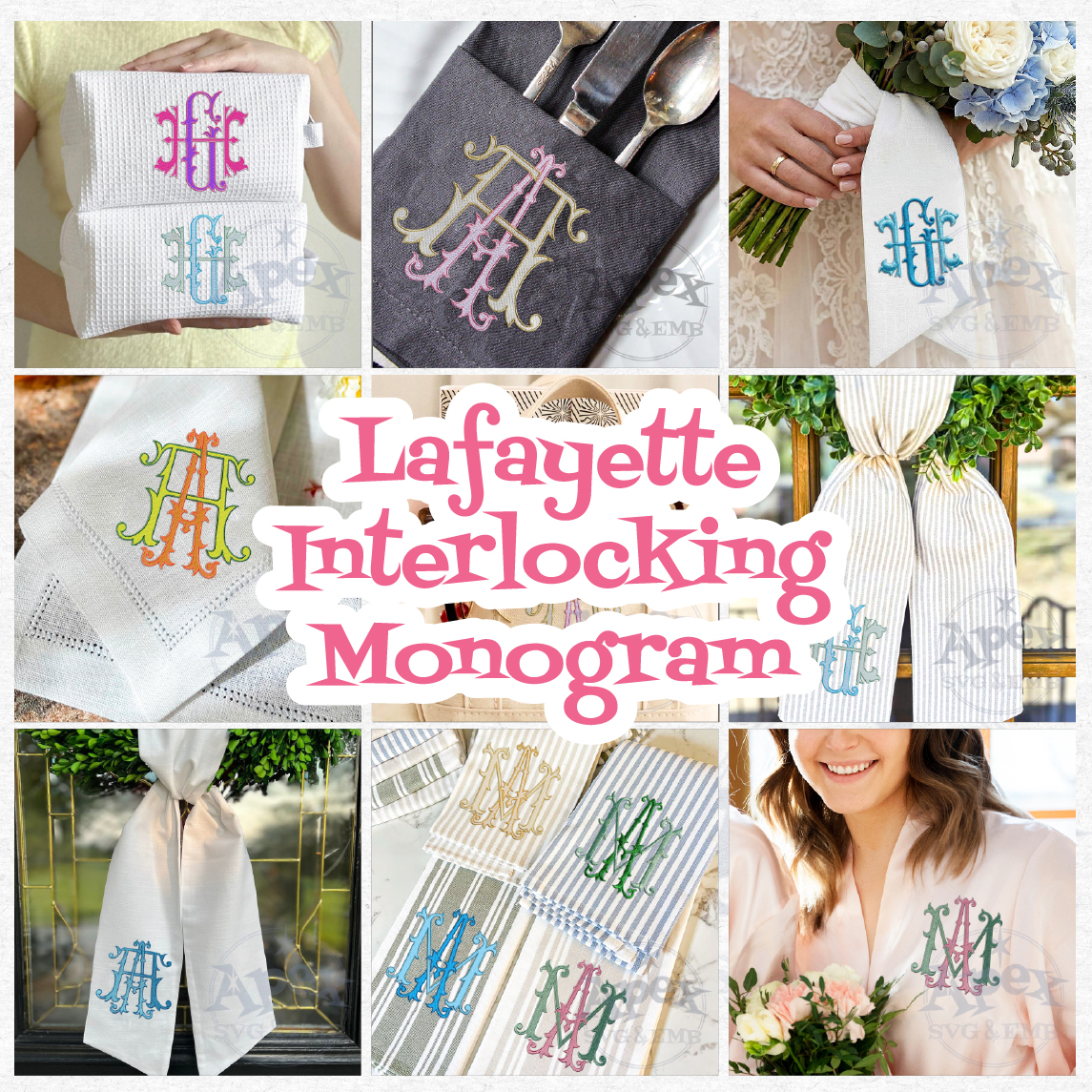
Interlocking embroidery fonts weave two or three initials into one joined monogram. At Apex you will find them in two forms: custom-made designs drawn for your own initials, and complete sets that include every two-letter pair, ready to stitch. This collection brings both together so you can compare styles, sizes, stitch types and how each design is delivered.
What Are Interlocking Embroidery Fonts?
Apex describes its interlocking monograms as initials that flow in and out of one another to form a single design. You will also see them called interlocking monogram fonts or interlocking letters. Two-letter designs use two initials and three-letter designs use three. In the complete sets each pairing comes pre-assembled into a single stitch-ready design, so there is no manual letter alignment.
Two Ways to Buy an Interlocking Monogram
Complete Sets With Every Two-Letter Pair
These sets include pre-merged two-letter monograms, so any pair from A to Z is ready to stitch. Their pages list machine formats plus BX for Embrilliance. Each set has 676 pairings.
- Varsity Interlocking Font: bold athletic block letters. The Regular Fill Stitch Set (2", 3" and 4") has solid fill with a contrast outline in 3 thread colors, and the Large Applique Set (6", 7" and 8") has applique placement lines, tack-down runs and a satin border
- Wings Interlocking Monogram: structured block uprights with sweeping wing extensions, in 2", 3" and 4"
- Script Ladders Interlocking Monogram: ladder-like bridges and calligraphic flourishes inspired by vintage French linens and Victorian ironwork, in 2", 4" and 6"
- Vine Fishtail Interlocking Monogram: slender vine flourishes through bold fishtail letters. Regular sizes (2", 3" and 4") use satin and fill, and Large sizes (6", 7" and 8") use satin, split stitch and applique layers. Its page also mentions curated pairing files for bride and groom monograms
- Pagoda Interlock Monogram: inspired by Chinoiserie architecture, in 2", 4" and 6"
- Raven True Interlocking Monogram: a Regular Satin Stitch Collection (1" to 3") and a Large Fill Stitch Collection (4" to 6") with a patterned fill and satin borders
Custom Interlocking Monograms Made for Your Initials
- Roman 2-letter Interlocking Monogram and Lafayette Interlocking Monogram, both drawn for your chosen two initials. The Lafayette page lists 10 machine formats and 5 vector formats (SVG, DXF, PNG, PDF and EPS)
- Titus Roman 2-letter Block Interlocking Monogram, custom digitized for your two letters, with 10 machine formats, 5 vector formats and 12 coordinating frames, delivered by email in 5 to 7 working days
- Bresia 2-letter, a custom digitizing service rather than a full keyboard font, delivered by email within 5 to 7 working days. Its page says other styles, such as 3D puffy, applique, bean stitch and chain stitch, are available on request after the artwork is complete
- Brilliant 3-Letter Interlocking Monogram, in three stitching styles and five sizes: satin (4" and 5"), fill with satin outline (5" and 6") and sketch fill (8"), delivered by email within 5 to 7 business days
- Cassidy 3-letter Interlocking Monogram, sold as a custom order service rather than a keyboard font. It lists satin (4" and 5"), fill with satin (5" and 6") and a large ribbed fill (8"), with files arriving by email within 5 to 7 working days. Each 3-letter combination is sold separately
How to Choose an Interlocking Monogram
- Custom or complete set. A custom design is made for one pair or trio of initials. A complete set lets you stitch any pair you need.
- Number of letters. Choose two letters for a first and last initial, or three if you want to include a middle or family initial. The 3-letter order forms ask for the left, center and right letters, so decide the order before you order.
- Style. The collection ranges from Roman and block letters to script ladders, vine flourishes and wings.
- Sizes and stitch types. Read the size list on each page. Some designs offer satin, fill, sketch fill or applique, and the custom order forms let you choose a stitch version.
- Delivery time. Custom designs are drawn and digitized to order, so check the delivery time on the page and allow time before an event or gift deadline.
Where to Place Interlocking Monograms
The product pages suggest placements for each size. The Vine Fishtail page suggests 2" or 3" designs about 1.5 inches from the hem on linen cocktail napkins, 3" or 4" pairings on bridal robes and knitwear, and 6", 7" or 8" motifs for jacket and pillow centers. The Varsity page points its large applique sizes at jacket backs and team hoodies and its 3" or 4" fill sizes at left-chest placement. Other pages mention table linens, towels, bedding, canvas totes and bridal gifts.
Which file formats are included?
Check the included formats on each product page. The complete sets list machine formats plus BX for Embrilliance users, and the custom designs list 10 machine formats with vector files for the monogram.
Can I order a three-letter monogram?
Yes. Bresia 3-letter, Brilliant and Cassidy are three-letter designs, and each is made for the three initials you choose.
Final Thoughts